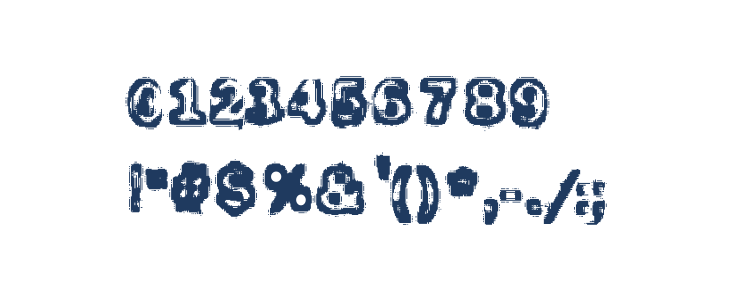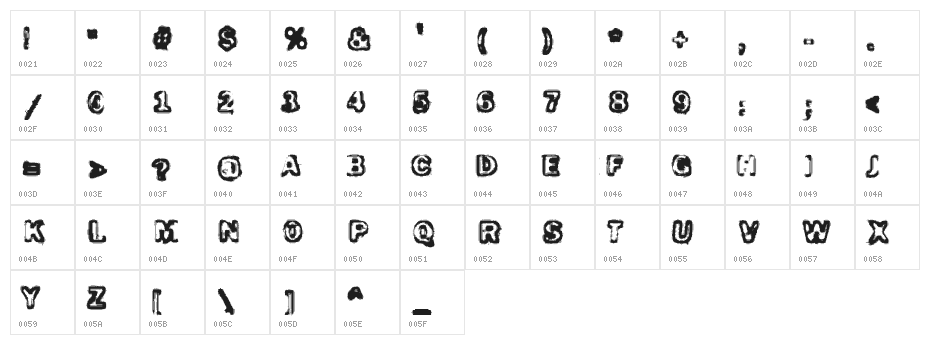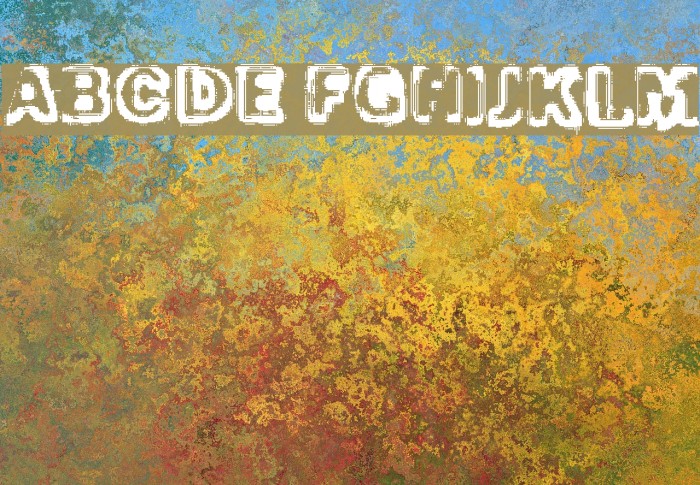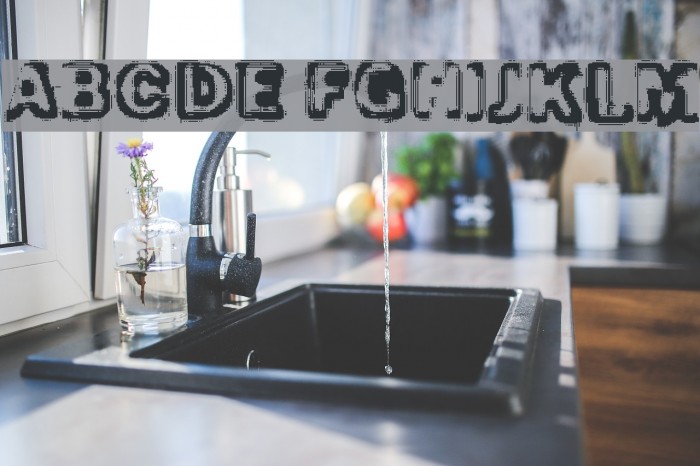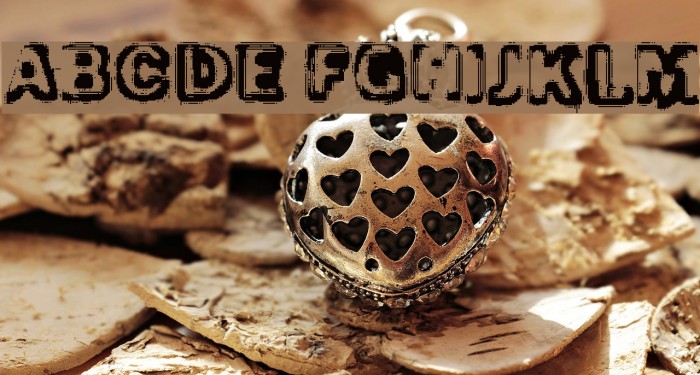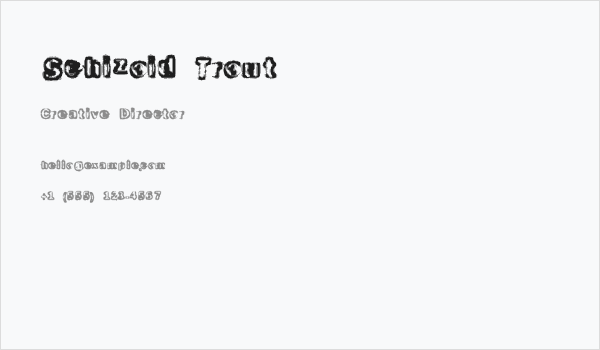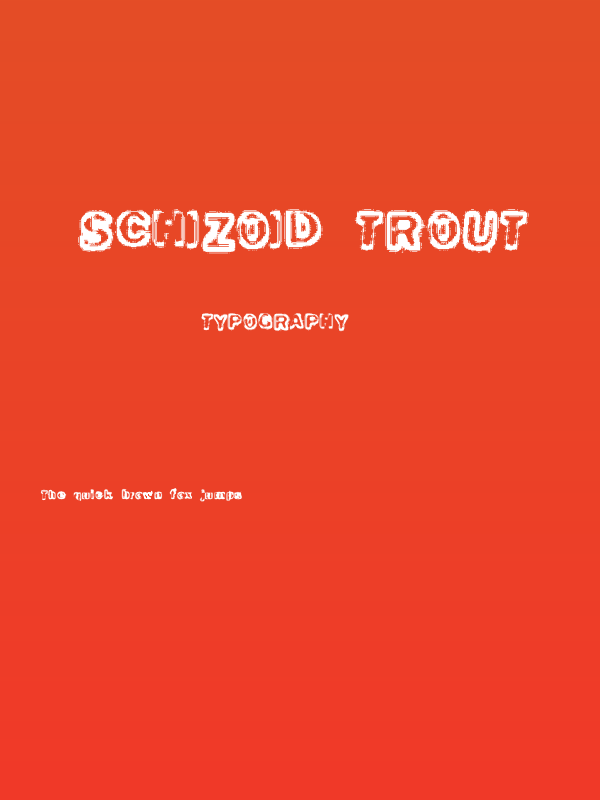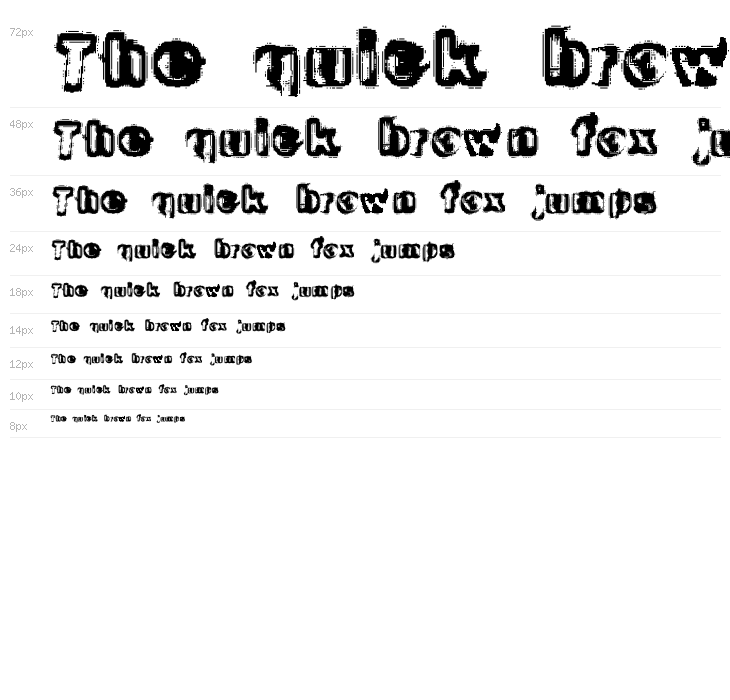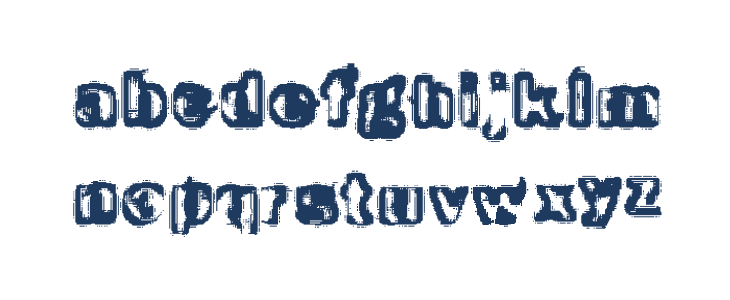
Schizoid Trout Font
Schizoid Trout Description
This font features a bold, distressed style with a rough, textured appearance. The letters have a unique, hand-drawn quality, giving them a rugged and organic feel. The uppercase and lowercase characters maintain a consistent design, with thick strokes and uneven edges that create a sense of movement and dynamism. The numbers and special characters follow the same aesthetic, ensuring a cohesive look across all elements. This font's distinctive style makes it stand out, offering a creative and artistic vibe that can add character to any project.